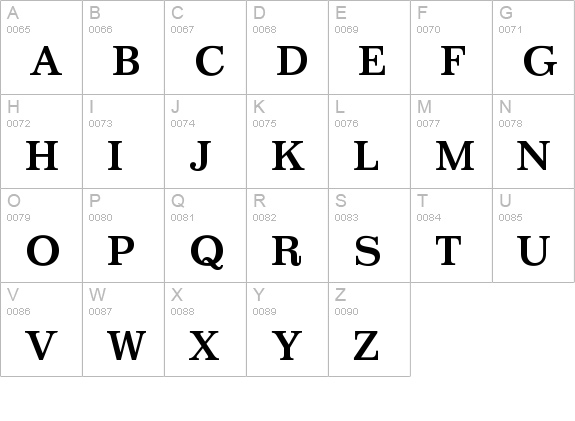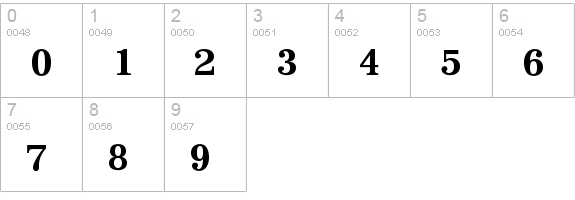
12 Impressum** Bold 07134 Font Details
12 Impressum** Bold 07134 is a strong, high-contrast variant in the 12 typeface family \xE2\x80\x94 well suited to headlines, attention-grabbing titles, and strong calls-to-action.
The 12 Impressum Bold 07134 font is a stunning display font that exudes elegance and sophistication. Its bold and impactful design makes it perfect for headlines, titles, and any creative project that requires a strong visual presence. With its sleek lines and defined edges, this font captures attention and commands a powerful presence on any medium. Whether it's for print or digital use, the 12 Impressum Bold 07134 font stands out effortlessly, making your message clear and memorable. Not only does this font pack a punch visually, but it also offers versatility in its range of applications. From branding and advertising to editorial design and packaging, this font is a reliable choice for any project that demands a touch of modernity and finesse. One of the best things about the 12 Impressum Bold 07134 font is that it is freely available to download at FontsMarket.com. This means that you can easily access this exceptional font without any hassle. This font is a true gem for designers, creatives, and anyone looking to add a touch of sophistication to their work. So, why settle for ordinary fonts when you can elevate your designs with the 12 Impressum Bold 07134 font? Download it today from FontsMarket.com and experience the power of this extraordinary font for yourself. Unleash your creativity and make a lasting impression with this stunning display font.